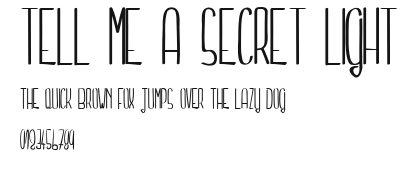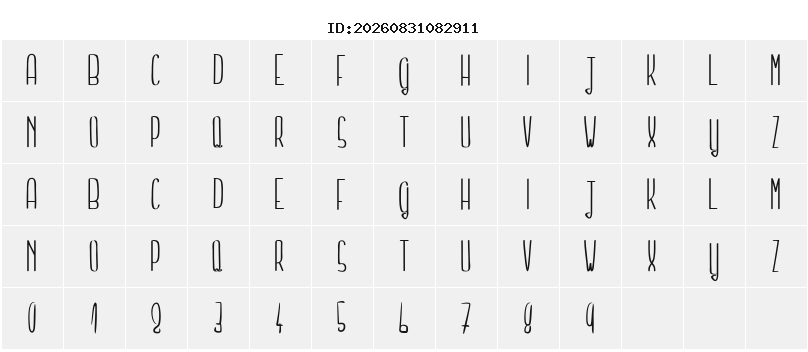
Tell me a secret light Preview
• Font Name: Tell me a secret light
• Full Font Name: Tell me a secret light
• Designer: M.K.V
• Manufacturer: M.K.V
About Tell me a secret light.ttf
Tell me a secret light.ttf is a modern, elegant sans-serif font designed for ultimate readability and visual harmony. Perfect for branding, headlines, web design, and print materials.